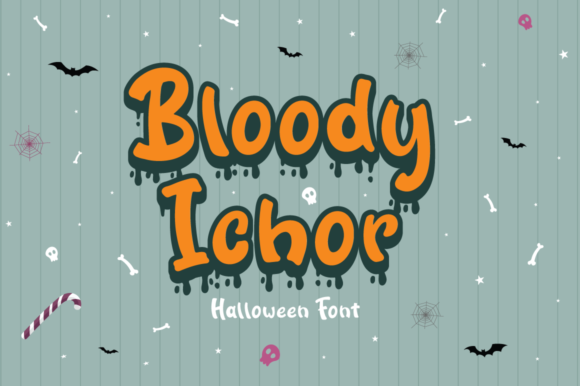
Feast your eyes upon Bloody Ichor, the font that oozes personality, coolness, and spooktacular style! With its unique and gripping display, this font will cast a spell on your designs and leave your audience in awe.
Picture this: you're crafting a food packaging design that screams for attention on the supermarket shelves. You want something that exudes uniqueness, something that makes your product stand out from the crowd. Bloody Ichor is your secret weapon. Its spine-chillingly beautiful characters will dance across your packaging, captivating customers with their eerie elegance.
This font is not for the faint of heart; it's for those who dare to be different, for those who relish the thrill of standing out. It's the perfect choice for food packaging that demands attention, for products that ooze quality and sophistication.
Bloody Ichor is meticulously crafted by attypestudio, a renowned font foundry known for their creative and innovative creations. Each character is a stroke of genius, a work of art that seamlessly blends the macabre with the magnificent.
Imagine your food packaging adorned with this font. The Bloody Ichor font will make your products leap off the shelves, beckoning customers to pick them up and experience the thrill of the supernatural. Its captivating curves and haunting edges will leave an unforgettable impression, ensuring that your brand becomes synonymous with unforgettable taste.
Don't settle for ordinary fonts that blend into the background. Unleash the power of Bloody Ichor and let your designs scream for attention. Step into the realm of the extraordinary and watch as your sales soar to new heights. Embrace the allure of the supernatural and let Bloody Ichor be your guide to success.
So, what are you waiting for? Dive into the world of Bloody Ichor and let your creativity run wild. Let this font be your muse, your partner in creating designs that will leave an everlasting impact. Dare to be different, dare to stand out, and let Bloody Ichor lead you to packaging greatness.